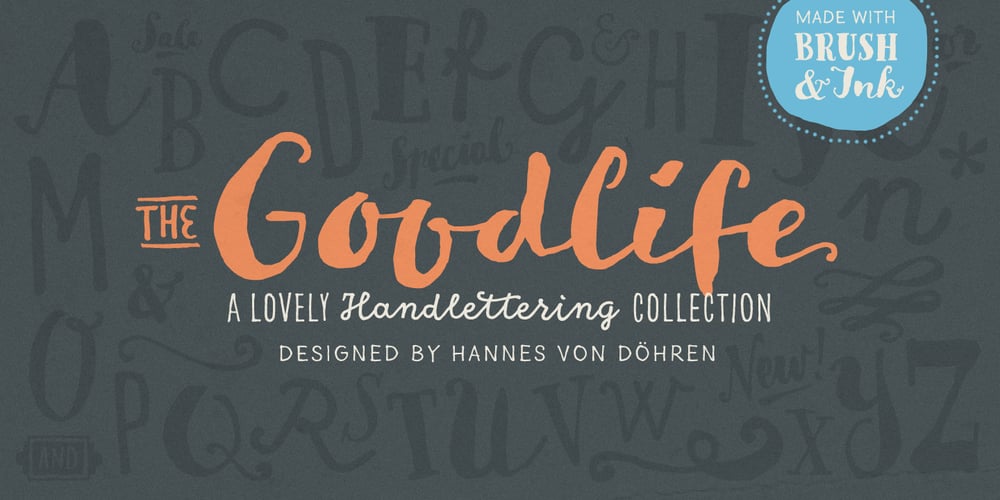
Goodlife Font Family was designed by Hannes von Döhren and published by HVD Fonts. Goodlife contains 7 styles and family package options. The Goodlife type family is a lovely handlettering collection designed by Hannes von Döhren. It contains six different hand drawn fonts with loads of features and a set of extras such as catchwords, arrows, ornaments & more. With this set and a little bit of love and care it is possible to create beautiful “handmade” graphics. Equipped with automatically exchanging alternates, ligatures, end forms, swash letters and some other features, Goodlife is optimized to feel not just like a font but like true handletterings. Goodlife is made for complex, professional typography. The OpenType fonts have an extended character set to support Central and Eastern European as well as Western European languages.